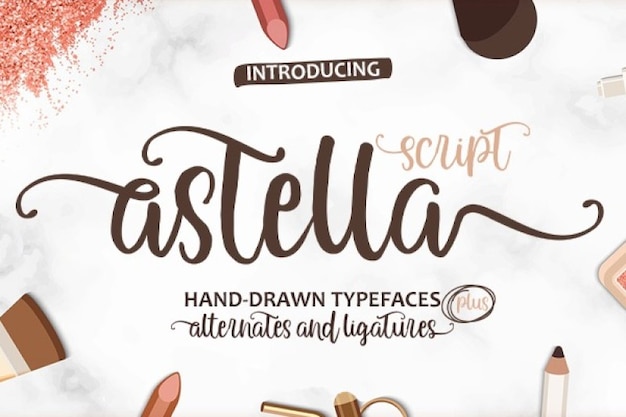
Astella Script Font
Youngtype
Are you looking for a stylish typeface? In this case, the Astella Script font is the one! Its elegance and ligatures will perfectly suit your wedding projects. We assure you that there is no better way to decorate your creations than using this cozy font. Download it now!